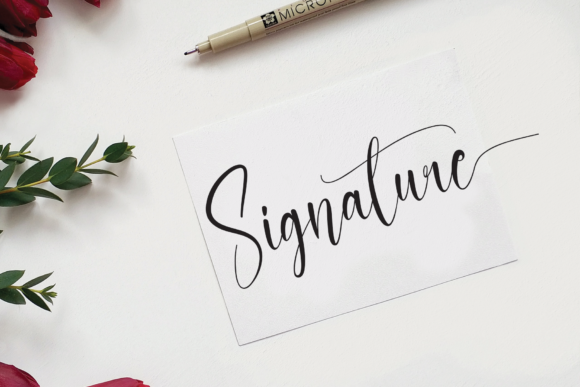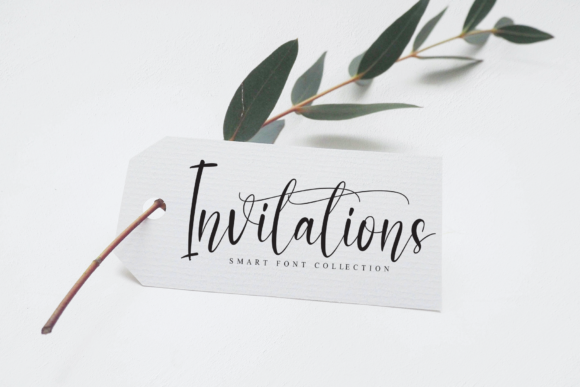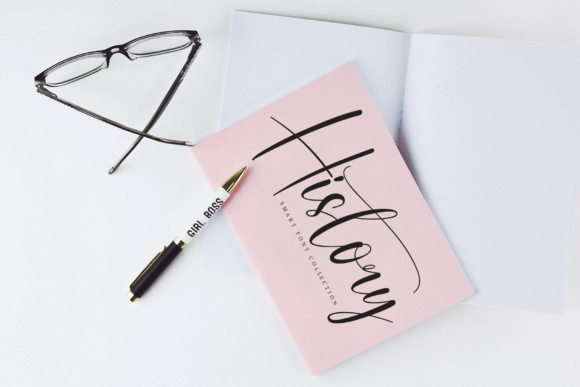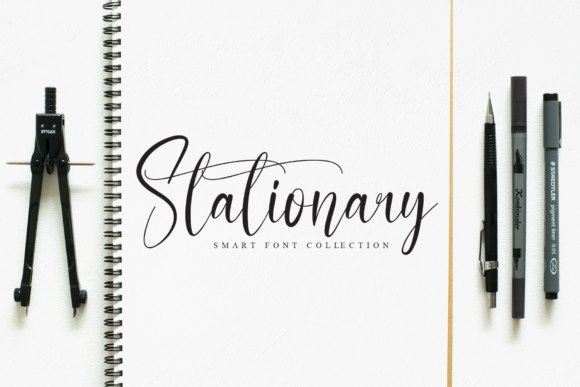
Introducing Amsterlove Font: Elevate Your Designs with a Touch of Luxury
Are you on the hunt for a font that adds a dash of elegance and sophistication to your design projects? Look no further than Amsterlove Font. This beautiful, light handwritten font is designed to make your creations stand out with its unique feel and stunning impact. Whether you’re working on a branding project, crafting a stunning invitation, or designing a website that exudes luxury, Amsterlove is the perfect choice.
The Unique Charm of Amsterlove Font
Amsterlove Font boasts a distinctive, handcrafted aesthetic that sets it apart from more traditional fonts. Its light, airy feel gives it a modern and fresh look, making it incredibly versatile for a wide range of design applications. The unique characteristics of Amsterlove ensure that your designs will have a personalized touch, capturing the attention of your audience and leaving a lasting impression.
Why Choose Amsterlove for Your Projects?
There are countless reasons why Amsterlove Font should be your go-to choice for your next design project. Here are just a few:
- Luxury and Sophistication: Amsterlove adds a touch of luxury to any design, making it perfect for high-end branding, packaging, and marketing materials.
- Versatility: This font is incredibly versatile, suitable for use in digital and print designs, from elegant stationery to stylish website headers.
- Readability: Despite its elegant and light feel, Amsterlove maintains excellent readability, ensuring your message is conveyed clearly and effectively.
- Unique Appeal: Stand out from the crowd with a font that has a unique character, setting your designs apart from the generic and ordinary.
Amsterlove in Action: Design Ideas to Inspire You
Amsterlove Font can elevate a wide range of design projects. Here are some ideas to get you started:
- Wedding and Event Invitations: Create stunning invitations that set the tone for an unforgettable event.
- Branding and Logo Design: Use Amsterlove to craft a luxurious brand identity that resonates with your target audience.
- Packaging Design: Add a touch of elegance to your product packaging, making it stand out on store shelves.
- Website Headers and Typography: Elevate your website’s design with Amsterlove, creating a memorable user experience.
Tips for Using Amsterlove Effectively
To make the most of Amsterlove Font, consider the following tips:
- Pair with Complementary Fonts: Combine Amsterlove with simpler fonts for body text to create visual interest and hierarchy in your designs.
- Play with Colors: Experiment with different colors to find the perfect match that enhances the luxurious feel of Amsterlove.
- Adjust Letter Spacing: Fine-tune the letter spacing to optimize readability and aesthetic appeal for your specific design.
Amsterlove Font is more than just a typeface; it’s a design statement. Its unique blend of elegance, luxury, and readability makes it an invaluable asset for designers and crafters looking to elevate their projects. Whether you’re aiming to create a lasting impression with a brand identity, convey luxury through packaging, or simply add a touch of sophistication to your website, Amsterlove is the perfect tool for the job. Discover the impact Amsterlove can have on your designs and bring a touch of luxury to your creative projects today.